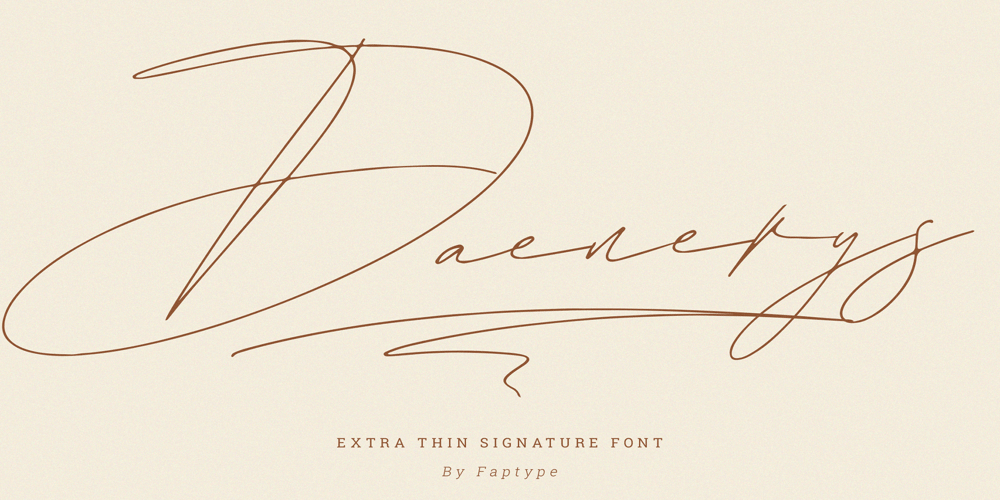
Daenerys Signature Font Family was designed by Ferry Ardana Putra and published by Ferry Ardana Putra. Daenerys Signature contains 1 styles and family package options. Daenerys is a thin, elegant signature font that is perfect for a wide range of design projects. It has a delicate, calligraphic style with smooth, flowing lines that give it a sense of grace and beauty. The letters have a slight slant, which gives them a hand-written feel, making it suitable for invitations, wedding stationery, and other special occasions. One of the most striking features of this font is the abundance of swashes. These are decorative flourishes that extend from the letters, adding a unique and ornate touch to your designs. The swashes come in a variety of shapes and sizes, and they can be used to add emphasis to specific letters or words. This makes the font perfect for creating elegant, eye-catching titles and headlines. The lowercase letters have a unique and modern touch, The uppercase letters are more formal and elegant, making them great for headlines and titles. Daenerys is a versatile font, it’s perfect for branding, packaging, and web design. The thin lines make it easy to read in small sizes and it’s also great for overlaying on top of other design elements. Overall, Daenerys is a beautiful and sophisticated font that can add a touch of elegance to any design project.Daenerys features: A full set of uppercase and lowercase Numbers and punctuation Multilingual language support PUA Encoded Characters OpenType Features +274 Total Glyphs +40 Signature Swashes